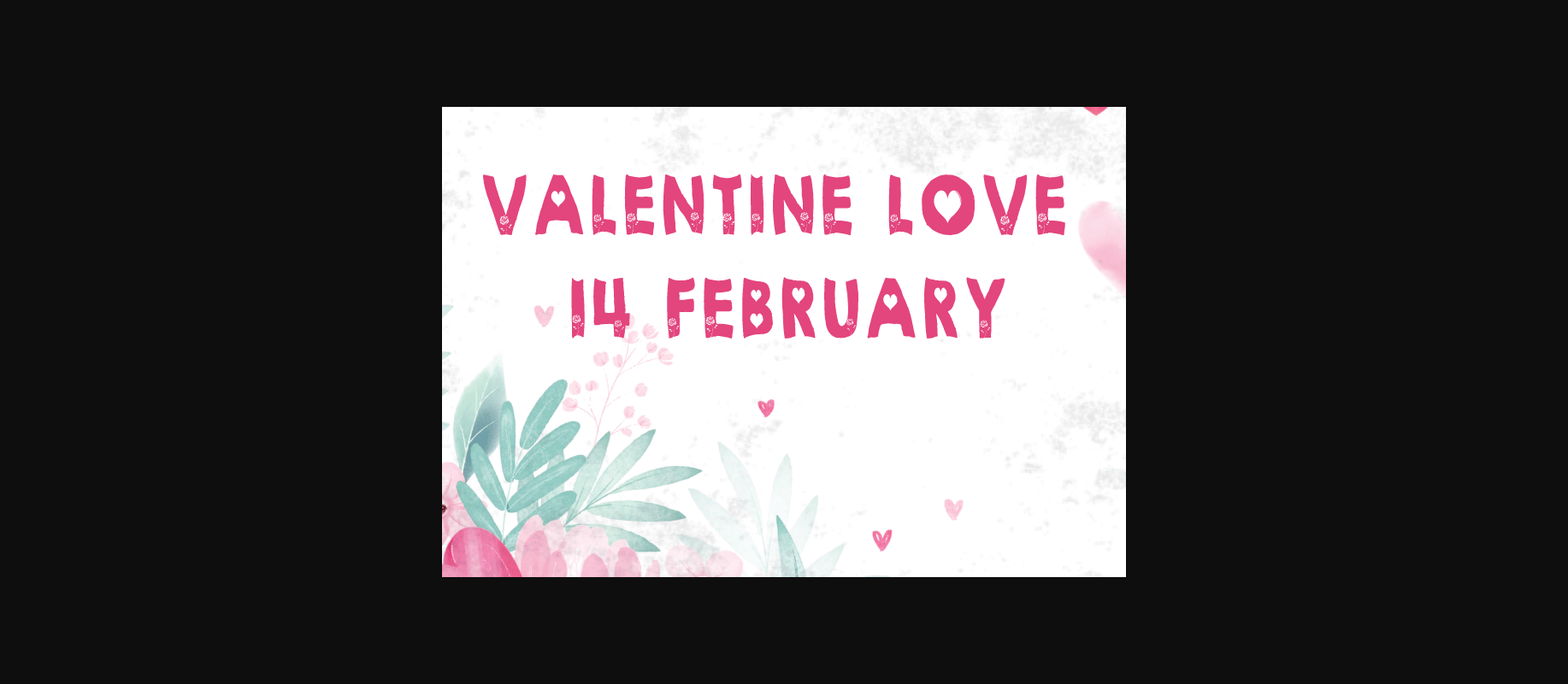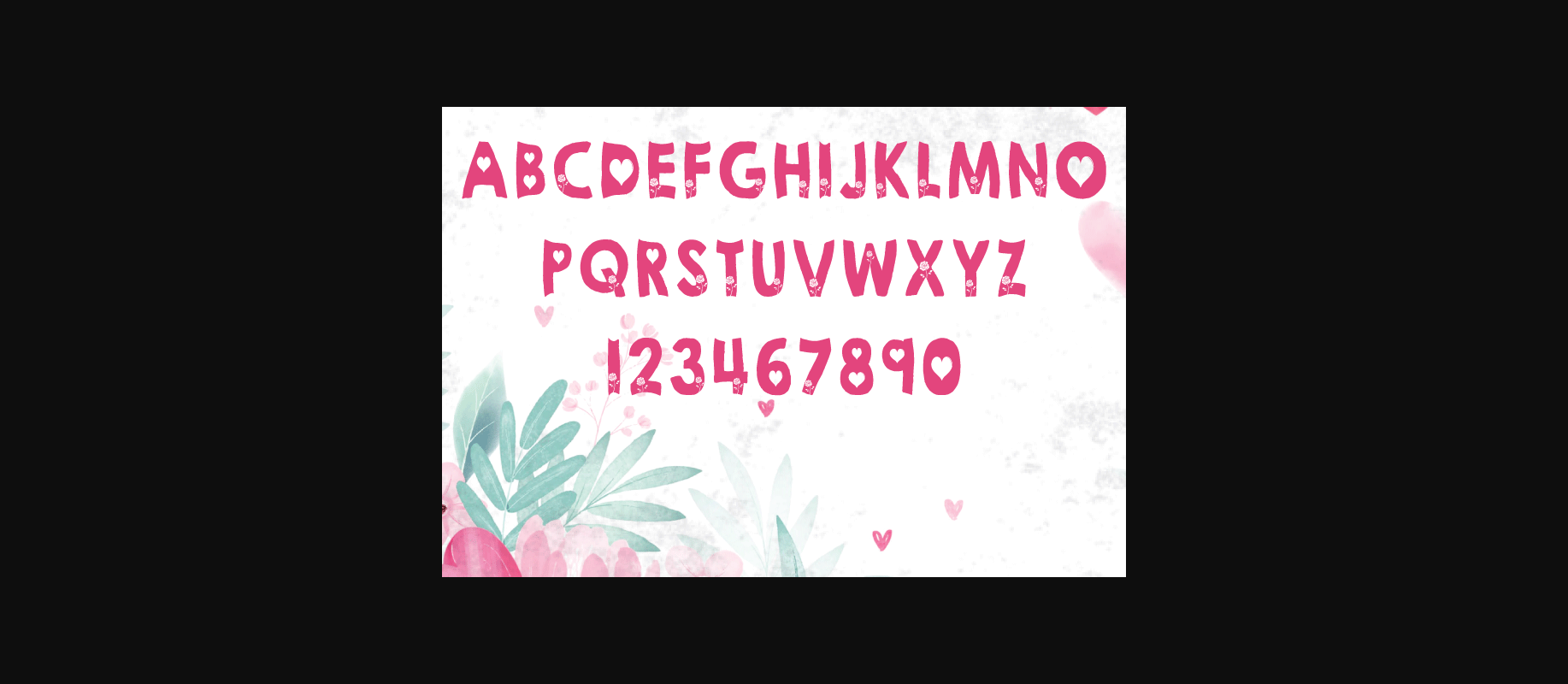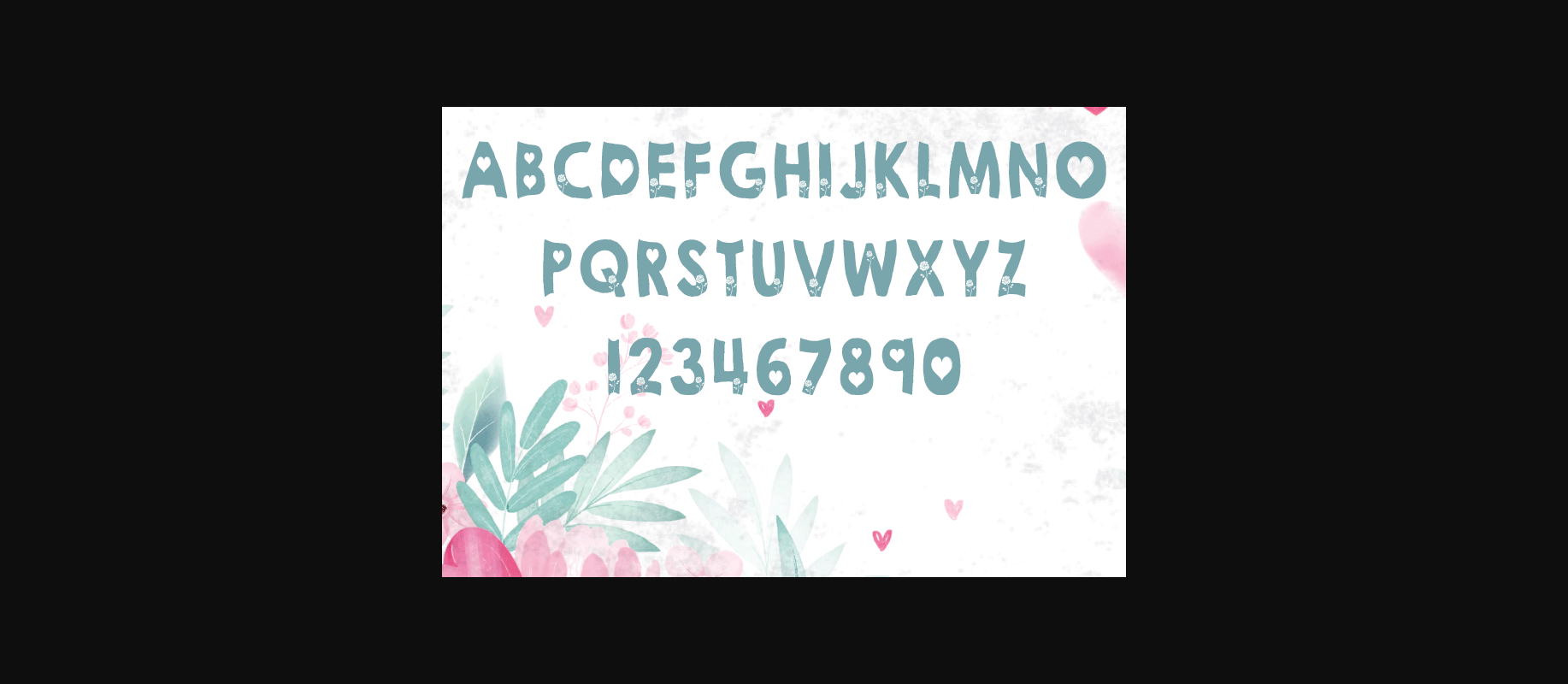
HomeDecorative FontsValentine Love Font Decorative Fonts Valentine Love Font FacebookXPinterestWhatsApp 1 of 5 ... Valentine Love Font Poster 2... Valentine Love Font Poster 3... Valentine Love Font Poster 4... Valentine Love Font Poster 5... About Valentine Love Font Valentine Love is a catchy and modern font. Use this decorative font for your greeting cards, logos, social media posts, or any other design idea you can think of! DOWNLOAD NOW People also explored Brush Stroke Font Chili Font Family Complete Font Willow Font Aerial Chain Font Gohanto Jincuk Font Leaf Font Sweetie Summer Font Vaisland Font Yesterday Font 285 0 TagsValentine Love Font Previous articleMrqueen FontNext articleValentine Dog Font LEAVE A REPLY Cancel reply Comment: Please enter your comment! Name:* Please enter your name here Email:* You have entered an incorrect email address! Please enter your email address here Website: Save my name, email, and website in this browser for the next time I comment. Personal Use Free Sweety Blue Personal Use Free Read more about this font Rolling Door Personal Use Free Read more about this font Gupis Personal Use Free Read more about this font Husky Stash Personal Use Free Read more about this font BLOG Free Fonts Risk: Why Free Fonts Can Be Dangerous for Designers Free Fonts Risk: Why Free Fonts Can Be Dangerous for Designers Using free fonts is a common practice in web and graphic design. However, the... Free vs Paid Fonts: Why Investing in Premium Fonts Is Worth It How to Cut Any Font on Cricut: Convert a Font to SVG (Free) 5 Fonts That Will Dominate Design Trends in 2026